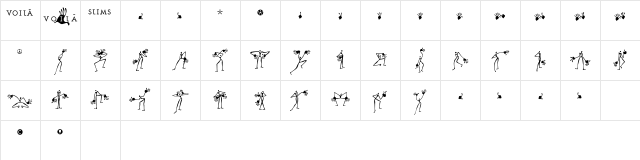
Voila Slims
Style: Slims
Voila Family
Voila Slims
Design Context for Voila
Voila is a composed and adaptable typeface that performs quietly and consistently across a wide range of design contexts.